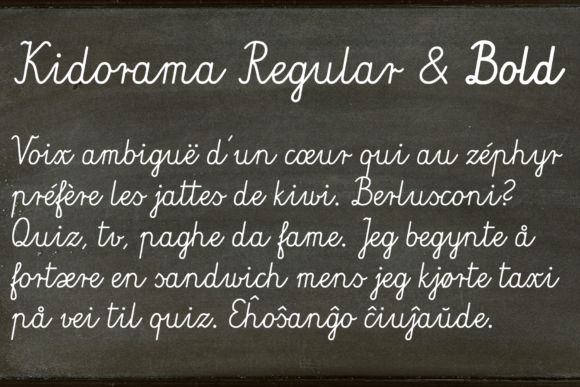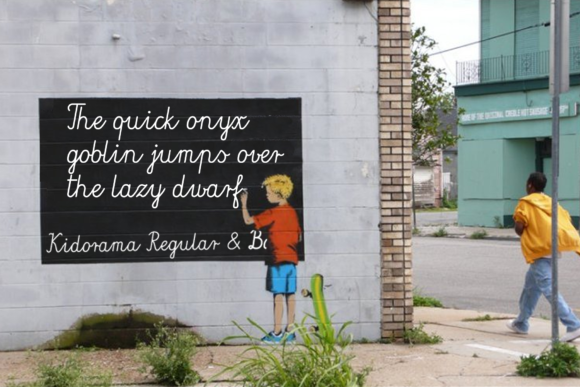
Kidorama Font
About Kidorama Font
The Kidorama is a hand-drawn script inspired by the calligraphic models used in Polish primary school. This font is perfect for use in children’s oriented publishing.